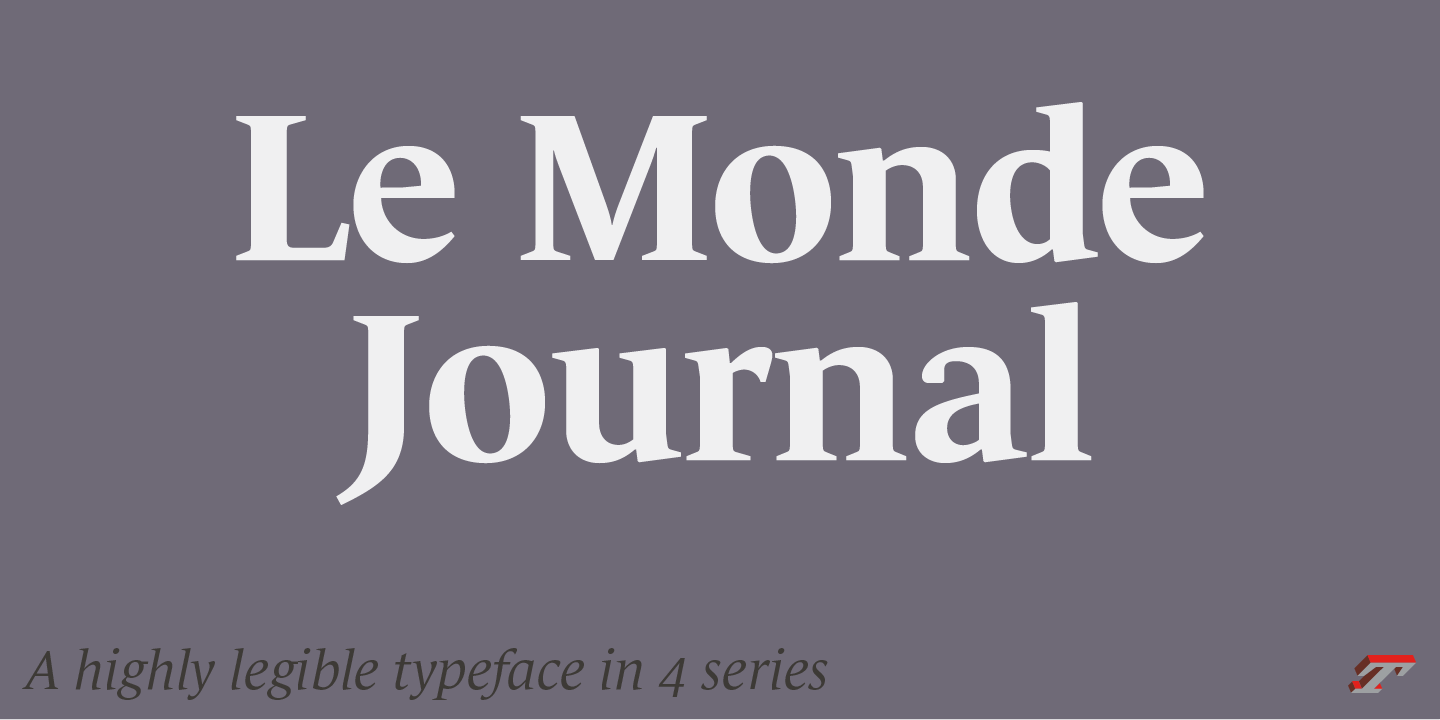
Le Monde Journal Std Font excels in diverse design applications including international newspaper layouts, prestigious journal publications, diplomatic communications, sophisticated editorial designs, academic research materials, cultural magazine presentations, intellectual discourse publications, and refined journalistic communications that require French sophistication and global editorial excellence.
What makes Le Monde Journal Std Font truly exciting is its distinguished embodiment of French intellectual tradition and international journalistic excellence that captures the sophisticated editorial standards and cultural authority of world-class journalism, reflecting the refined aesthetic sensibilities and intellectual rigor that define prestigious newspaper design and scholarly publication. This elegant typeface features carefully balanced letterforms with subtle French typographic influences that evoke images of Parisian newspaper kiosks, intellectual cafés, and the sophisticated discourse that characterizes high-quality journalism and academic excellence. The font's editorial character reflects the precision and cultural authority required in international journalism, making it perfect for brands that want to communicate intellectual sophistication, editorial excellence, and the refined standards that define world-class publishing and academic discourse. Its journalistic appearance creates immediate associations with intellectual authority and editorial prestige.
The Le Monde Journal Std Font family includes comprehensive weights and editorial variations designed to enhance journalistic communication. The collection features Light, Regular, Medium, Bold, and Black weights, each maintaining the font's characteristic editorial appeal while offering different levels of journalistic presence. The family also includes italic variants for proper editorial emphasis, small caps for scholarly conventions, and extended character sets with international symbols and professional punctuation. Additional features include contextual ligatures and editorial sets that create sophisticated, authoritative text arrangements perfect for publishing and academic applications.
Publishing and academic professionals consistently choose Le Monde Journal Std Font Free Download for projects requiring authentic journalistic character and editorial credibility. The font's sophisticated nature makes it particularly effective for newspapers, academic publishers, and cultural institutions targeting audiences who expect intellectual rigor and editorial excellence. Its exceptional readability in extended text ensures effective communication while maintaining the distinctive editorial character that conveys journalistic authority and academic sophistication.
The advanced OpenType capabilities of Le Monde Journal Std Font include extensive editorial ligatures, contextual alternates, and comprehensive character support that accommodates multiple languages and international publishing standards while preserving the font's authentic French editorial character. The technical precision ensures consistent journalistic appearance across different publishing applications and academic platforms.
For creative professionals seeking a typeface that embodies genuine French heritage and editorial sophistication, Le Monde Journal Std Font offers unparalleled journalistic appeal and intellectual elegance. Its ability to convey editorial authority while maintaining exceptional functionality makes it invaluable for newspapers, academic publishers, and cultural institutions. The font's distinctive editorial character ensures memorable journalistic impact across all applications, creating powerful visual identity systems that celebrate the principles of quality journalism and the sophisticated editorial standards that define international publishing excellence and intellectual discourse.